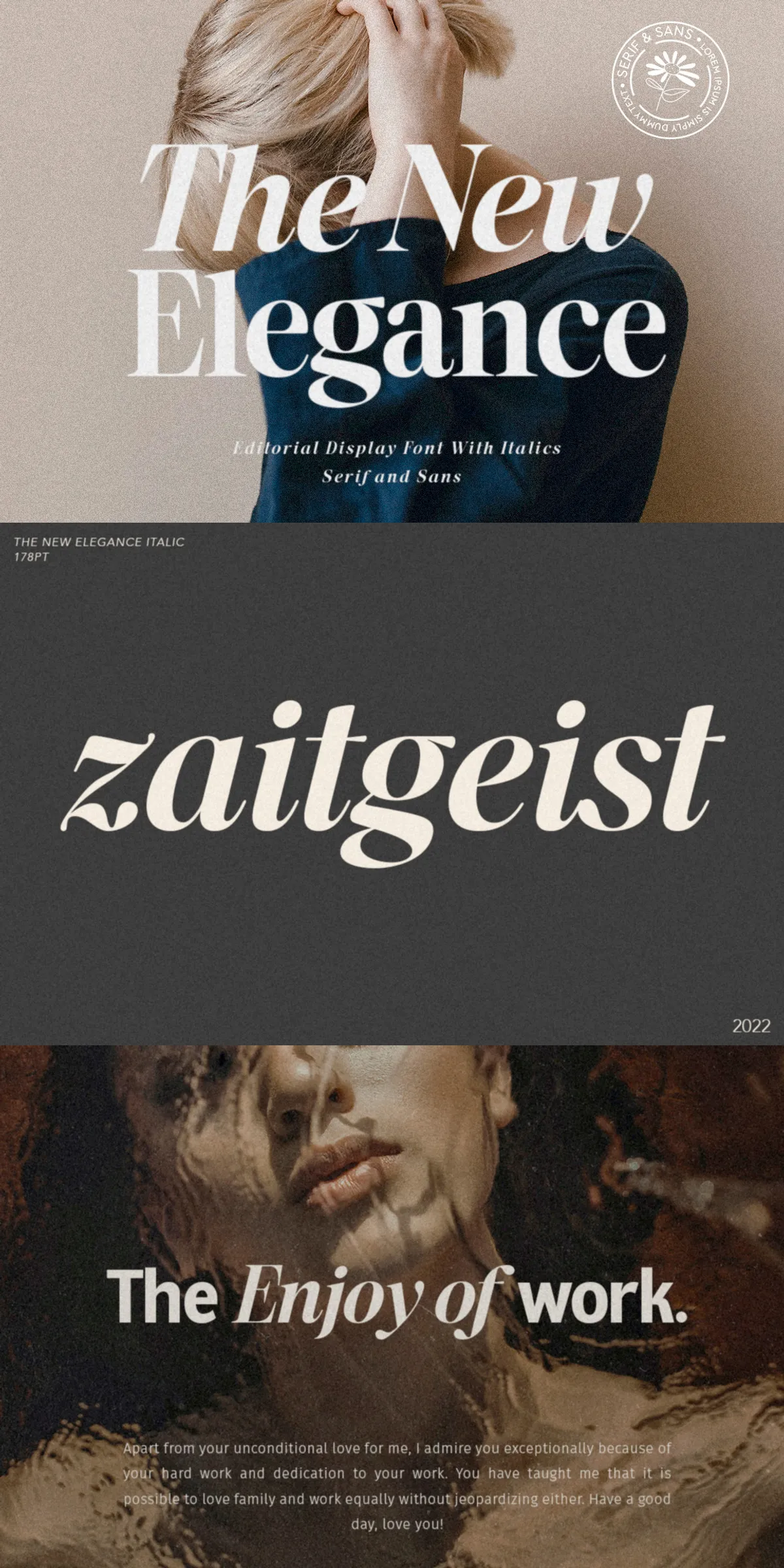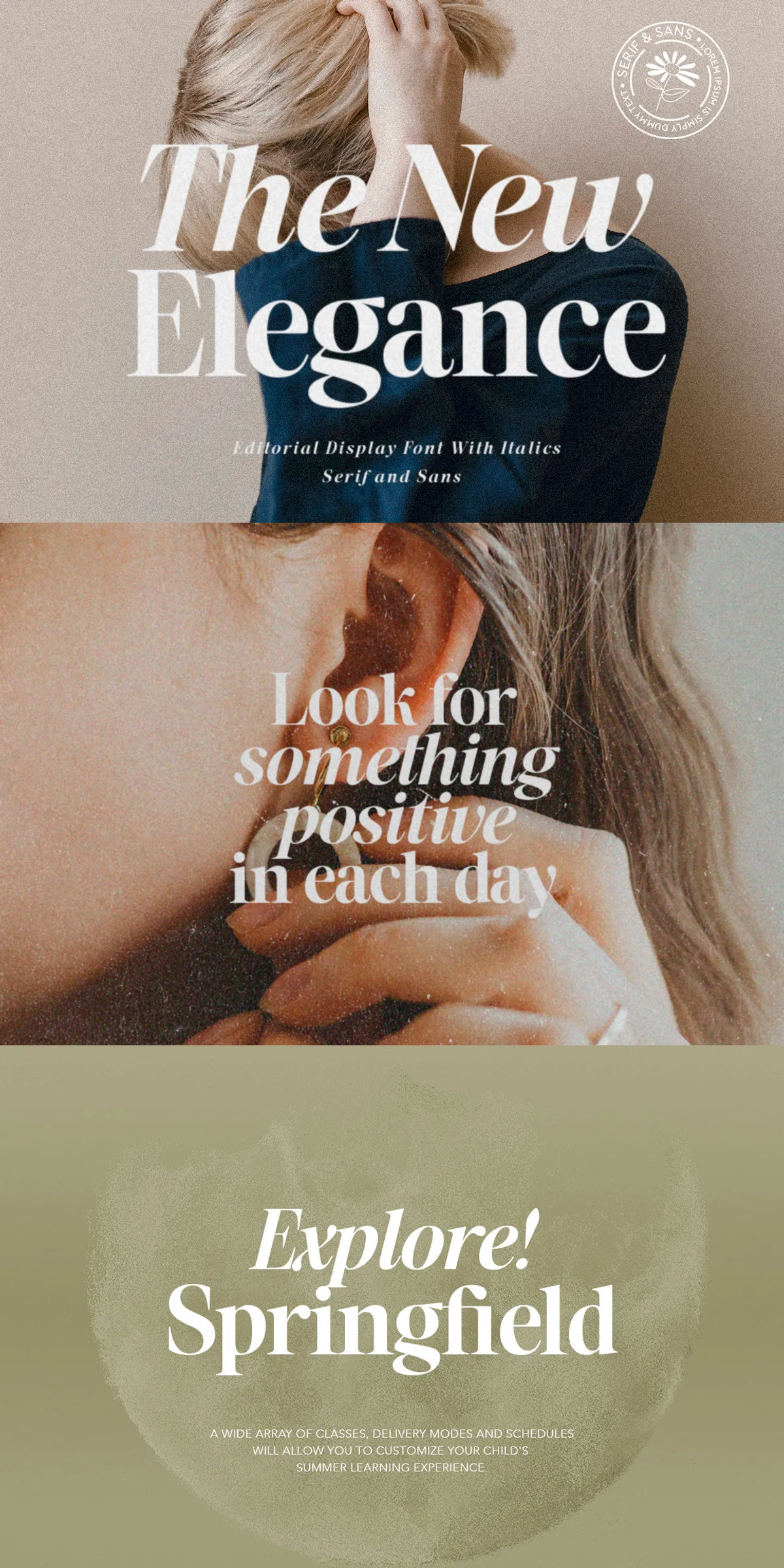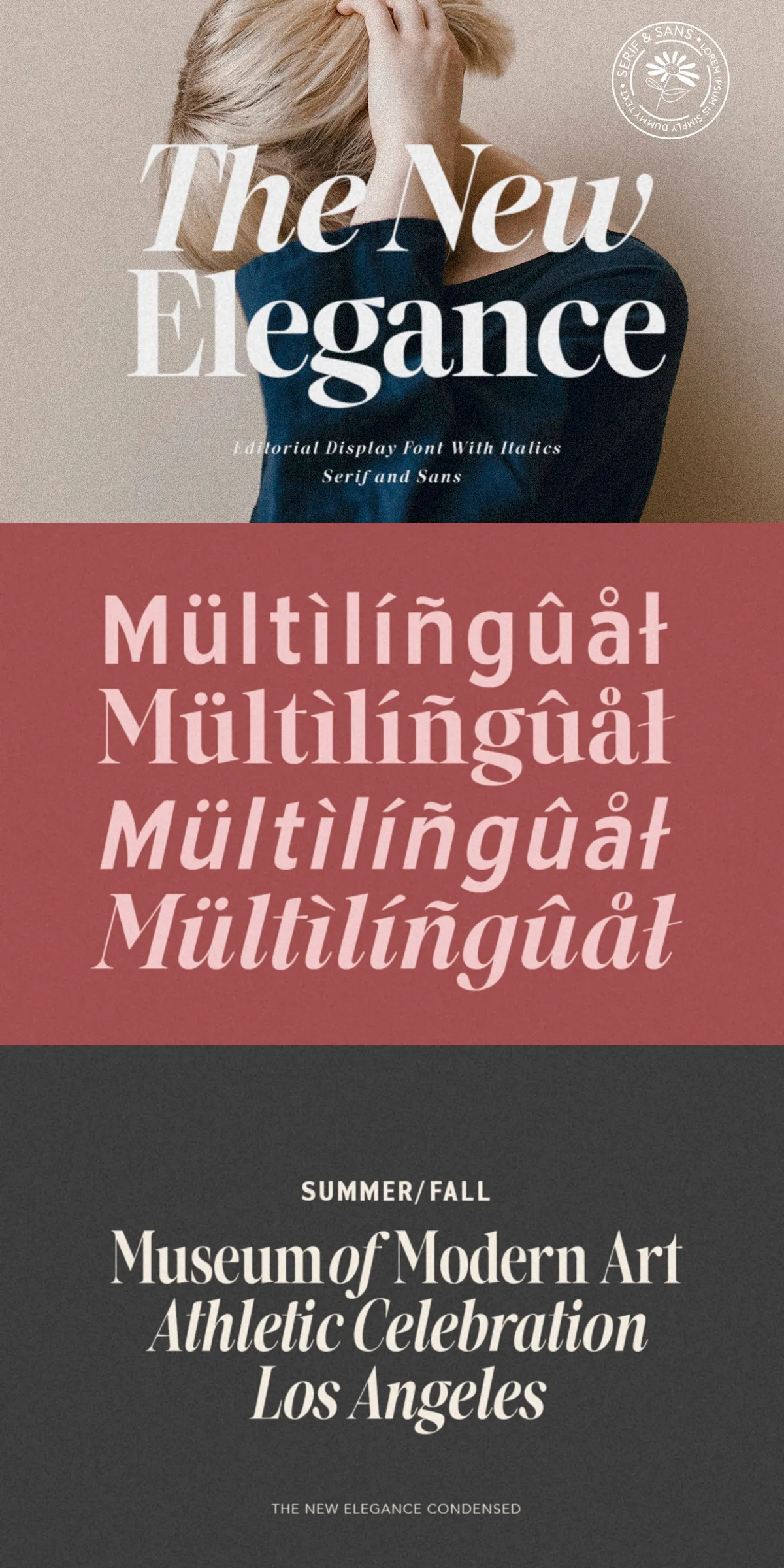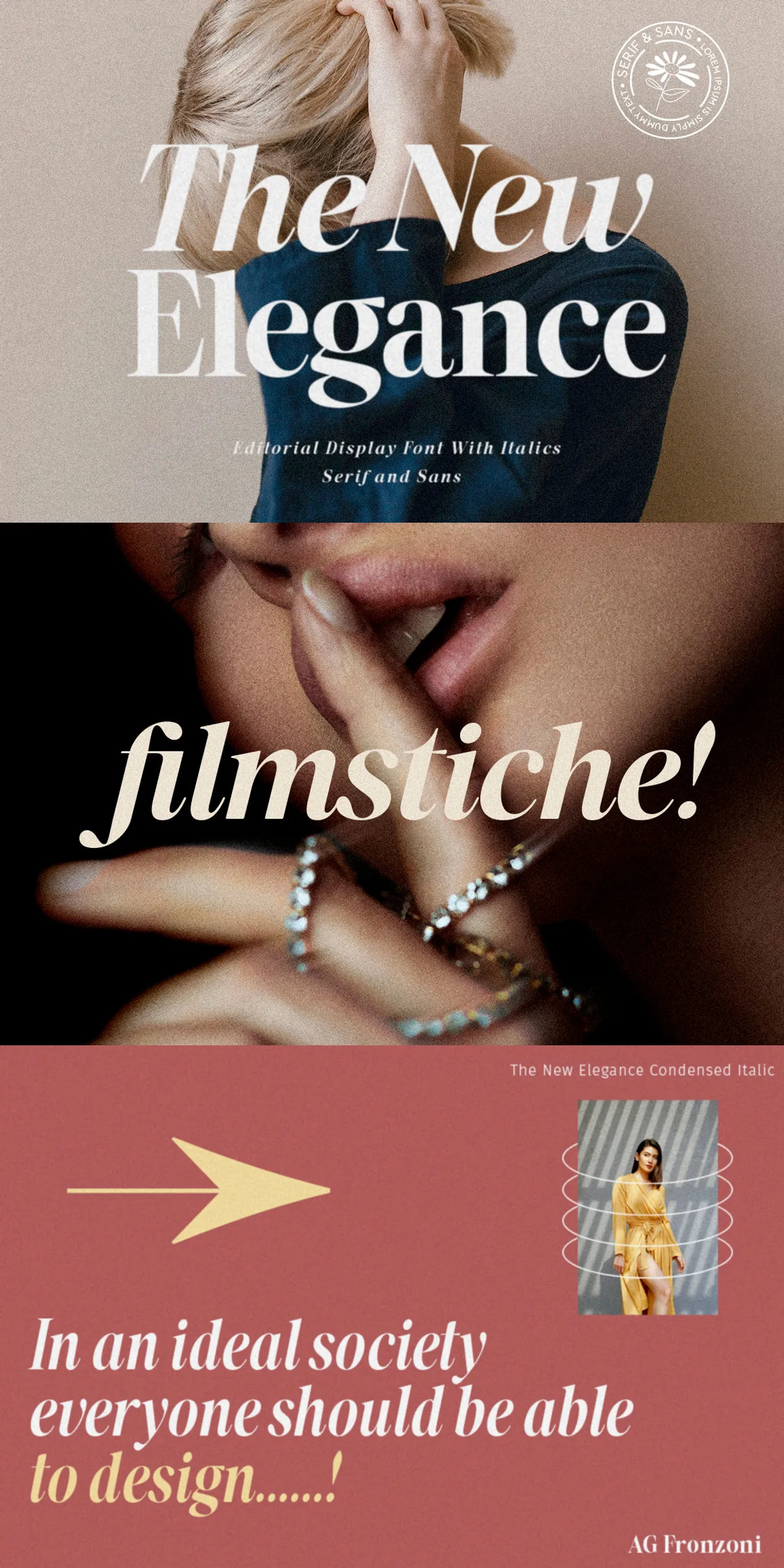
Step into the world of refined, elevated design with The New Elegance — a bold new editorial serif that blends soft curves, minimalist lines, and a sleek, contemporary aesthetic. More than just a font, it’s a design philosophy: where tradition meets modernity, and elegance never feels outdated. Ideal for creators who demand both visual harmony and expressive power, The New Elegance transforms your projects from simple text to lasting statements.
Two Distinct Worlds — Serif & Sans Serif, Each with a Sense of Purpose
Why choose one style when you can have two? The New Elegance delivers complete typographic flexibility through its dual identity: a refined serif version and a clean sans serif version, both designed with the same elegant spirit. Whether you’re aiming for classic sophistication or crisp, modern minimalism, this font system gives you the tools to match your vision perfectly.
- Serif Version — perfect for print magazines, editorial spreads, luxury branding, and vintage-inspired projects. The soft serifs add gentle character, guiding the eye with grace and tradition.
- Sans Serif Version — ideal for digital interfaces, modern logos, clean packaging, and minimalist design layouts. Its geometric precision brings clarity and focus to your message.
Each version is carefully crafted to maintain consistency in weight, spacing, and emotional tone — so your design language stays unified, no matter the medium.
Italic Styles That Add Depth and Emotion
With both serif and sans serif styles including full italic variants, The New Elegance empowers you to add rhythm, emphasis, and narrative flow to your designs. Use italics to highlight quotes, create dynamic headlines, or introduce contrast in body text. These aren’t just alternate letters — they’re expressive tools that deepen the emotional resonance of your content.
Designed for Every Creative Need — From Headlines to Heritage Branding
The New Elegance isn’t built for one use — it’s built for all. This versatile font is engineered to thrive in high-stakes design environments where precision and style matter. Whether you’re working on a lifestyle magazine cover, a product label, a social media campaign, or a brand identity, this typeface adapts with confidence and flair.
- Magazine and editorial design — create immersive, reader-friendly layouts with elegant headers and body text.
- Logo and brand identity design — craft unique, memorable brand names with a modern yet timeless feel.
- Product packaging and labels — communicate quality and style through every letter.
- Nostalgic yet clean design projects — blend retro inspiration with contemporary clarity.
- Website headers and landing pages — make first impressions unforgettable with strong, readable typography.
- Invitations and stationery — add a touch of refined elegance to every printed moment.
- Comprehensive multilingual support — covers Latin-based languages with full diacritic coverage for global use.
- OpenType features enabled — access stylistic sets, ligatures, alternate characters, and contextual alternations for advanced control.
- Consistent kerning and spacing — every letter pair is perfectly tuned for visual harmony.
The New Elegance isn’t just a font — it’s a declaration. It’s for designers who believe that typography should be both beautiful and intentional. It’s for those who want their work to resonate, to connect, and to stand the test of time. With its clean lines, soft curves, and modern elegance, this typeface allows you to communicate not just what you say — but how you feel.